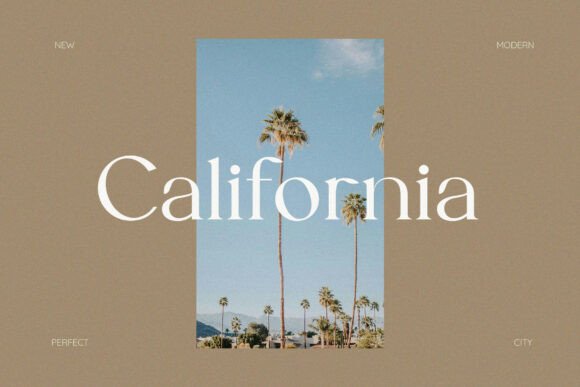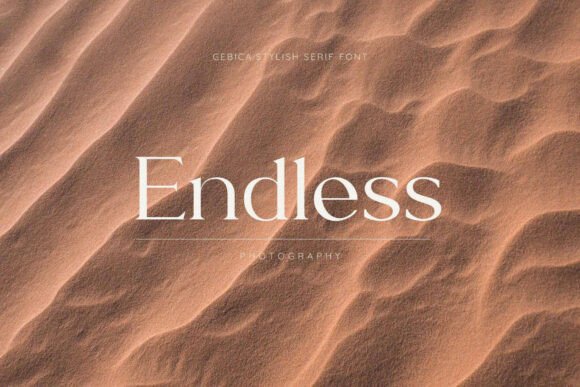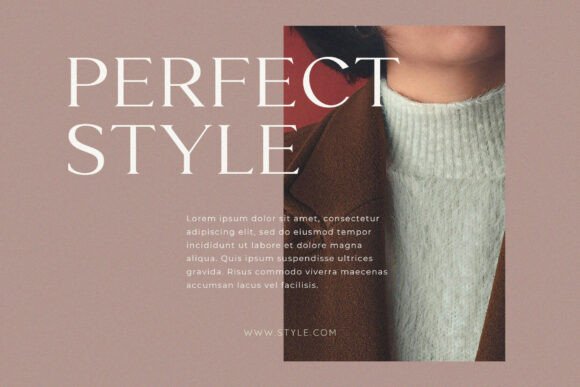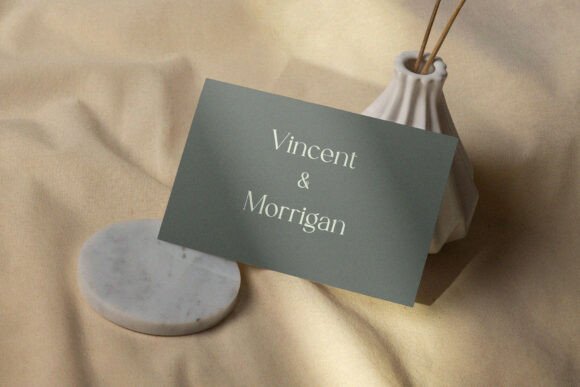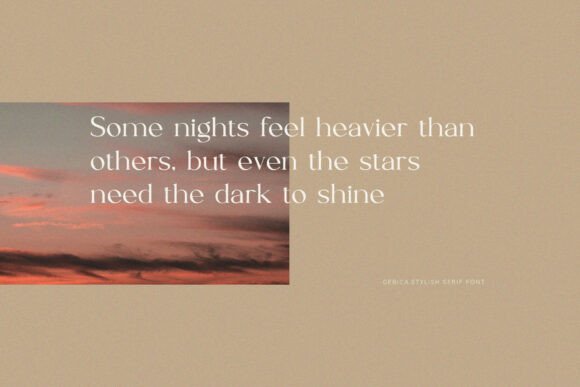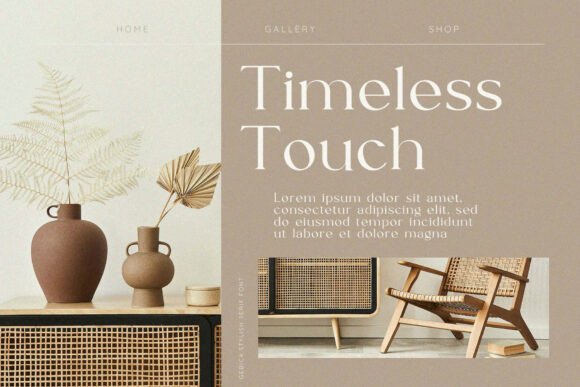
The Gebica Font: Elevating Your Designs with Modern Elegance
I’ll never forget the time I was working on a branding project for a luxury skincare client. I had spent hours perfecting the logo design, but something felt off. The font I had chosen just wasn’t giving the high-end feel I was going for. That’s when I stumbled upon the Gebica font. With its clean lines and smooth curves, it instantly elevated the design and gave it the sophisticated touch I needed. If you’re a designer, crafter, or creative hobbyist looking for a modern and classy typeface, you’re in luck because today we’re diving into the world of Gebica.
A Personal Review of Gebica
- ✨ Modern and classy design: Gebica’s sleek lines and smooth curves make it perfect for creating stunning headings, logos, and branding materials.
- ✅ Versatility: This font is not just limited to digital designs; it’s also great for print materials like magazines, product packaging, and invitations.
- 💡 Easy to read: Despite its elegant design, Gebica remains highly legible, even at smaller sizes.
While Gebica is an excellent font, there are a few things to keep in mind:
- ⚠️ Limited use in body text: Due to its elegant and modern design, Gebica might not be the best choice for long body text. It’s best used for headings and titles.
- 🤔 Some characters may require adjustment: Depending on the context, you might need to adjust the spacing or kerning of certain characters to achieve optimal results.
- Experiment with Gebica’s OpenType features, such as stylistic alternates, to add more personality to your design.
The Story Behind Gebica
Gebica was designed with the intention of creating a modern and elegant typeface that could be used across various platforms. Its creator aimed to craft a font that would offer both luxury and versatility, making it suitable for a wide range of design projects. While the exact details about the designer might be scarce, the impact of Gebica on the design community is undeniable.
Q: What is Gebica best used for?
A: Gebica is best used for display purposes such as headings, logos, branding, magazines, product packaging, and invitations.
Q: Can I use Gebica for body text?
A: While Gebica is highly legible, its elegant design makes it more suitable for headings and titles rather than long body text.
Q: Is Gebica suitable for digital designs?
A: Yes, Gebica is highly versatile and can be used in both digital and print designs.
Q: Does Gebica support OpenType features?
A: Yes, Gebica supports OpenType features, including stylistic alternates and glyphs, which can add more personality to your designs.